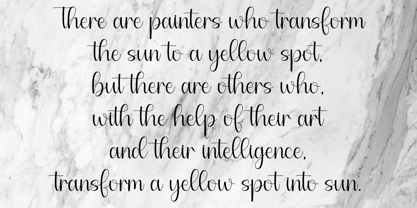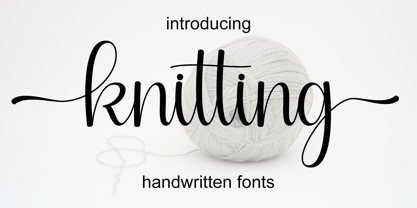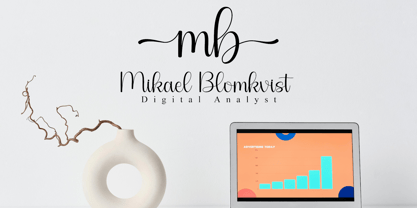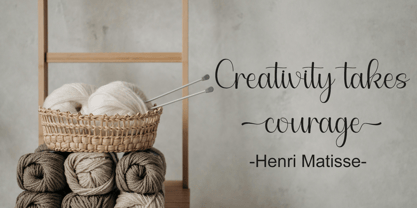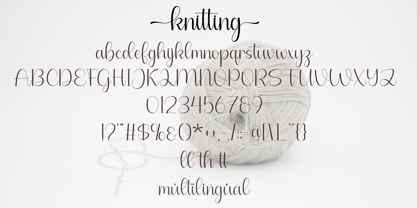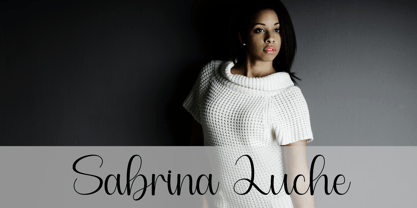
Knitting
La famille de polices Knitting a été conçue par Hardiman Siswanto et publiée par Hardiboy Design. Knitting contient 1 styles.
knitting is a dazzling script font. This font is neatly crafted and highly detailed. Whatever the topic, this font will be a wonderful asset to your font library, as it has the potential to enhance any creation.
This font is PUA encoded which means you can access all glyphs and swashes with ease!